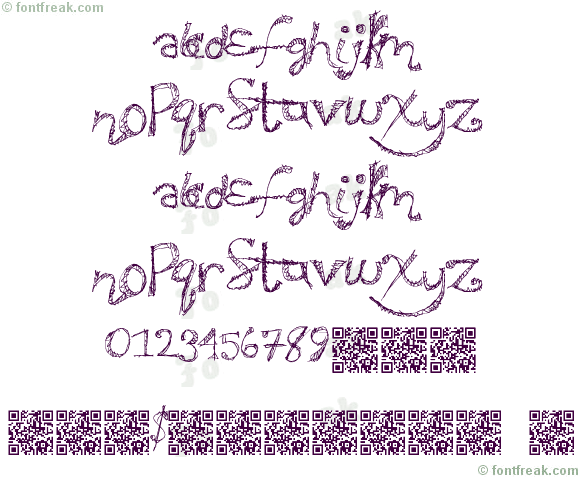
SweatyParty
SweatyParty by Xerographer Fonts is a distinctive display font that captures a playful, quirky essence, making it an exciting choice for a variety of design projects. This font features a unique handwritten style with a slightly irregular stroke weight, lending it a personal touch that feels both approachable and fun. The letters exhibit a charming blend of curvy and sharp edges, creating a delightful visual contrast that draws the eye. The spacing between the characters is thoughtfully designed, ensuring readability while maintaining the font's whimsical character.
SweatyParty is ideal for various creative applications. It shines in event invitations, particularly for casual gatherings and parties where a lighthearted tone is desired. This font can also be effectively used in vibrant movie posters aimed at younger audiences, adding a sense of energy and excitement. Restaurant menus that feature a fun dining experience can benefit from its playful style, making the text engaging and inviting. Additionally, the font works well in promotional materials for creative workshops or community events, capturing attention and encouraging participation.
The target audience for SweatyParty includes graphic designers looking to inject personality into their projects, small business owners who want a memorable brand identity, and content creators seeking to enhance their visual storytelling.
What sets the SweatyParty font apart is its unique blend of playfulness and charm, making it a standout choice for designers who want to convey a sense of fun and creativity. Whether you're crafting a light-hearted invitation or an eye-catching promotional piece, the SweatyParty font free download offers a fresh and engaging option that can elevate your designs and capture the essence of any fun-filled occasion.